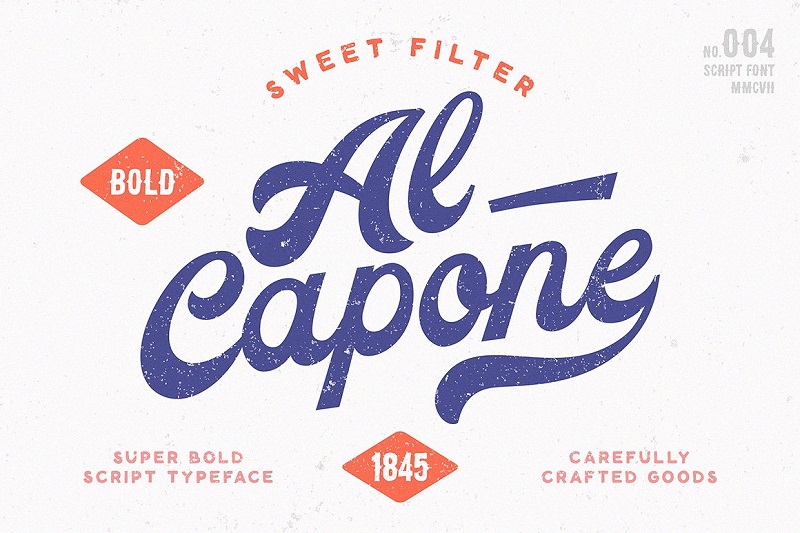
Best Baseball Script Fonts. Movements font is designed by billy argel. Cinderela script font is designed by billy argel and has a license for personal use only.
But maybe a baseball script font is more your aesthetic. This script font has a license only for personal use. My personal favorite out of the group is amsterdam one!
Letters, Numbers, And Basic Punctuation Are All Included.
Looking for script baseball fonts? This baseball font comes with stylistic alternates, swashes, ligatures, and supports the opentype feature. Boston fonts includes uppercase and lowercase letters, numerals, a large range of punctuation, alternate characters, stylishtic set, extrude font and ligatures.
What Is The Name Of The Old School Font That Swings A Tail Underneath The.
A retro font with over 400 glyphs, the seren baseball script font looks great with added texture. Click to find the best 37 free fonts in the script baseball style. You can download the images and share on your social media profiles.
Customize Your Logos With Additional Brush Effects To Make The Most Of This Font.